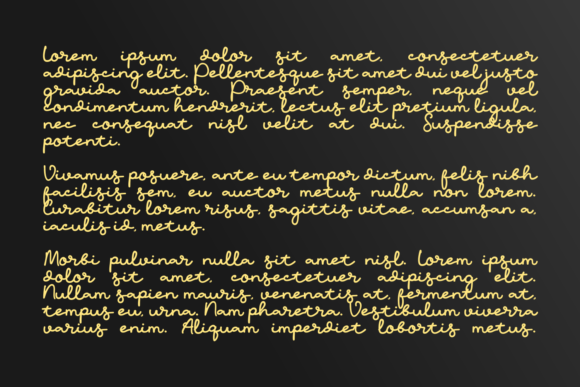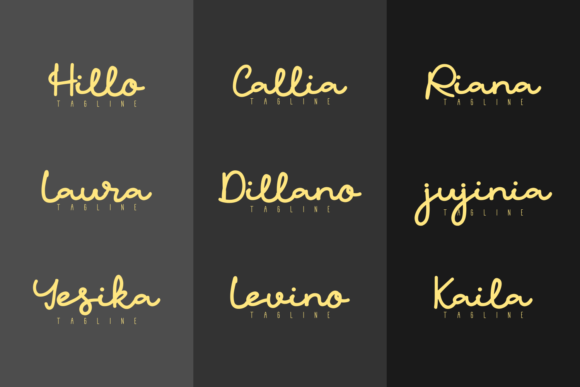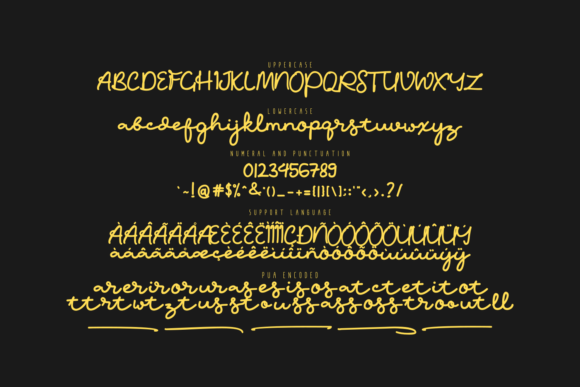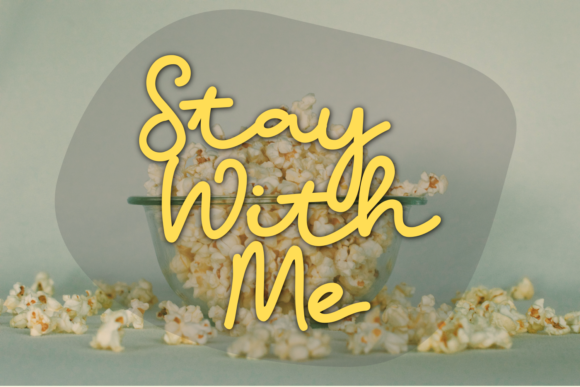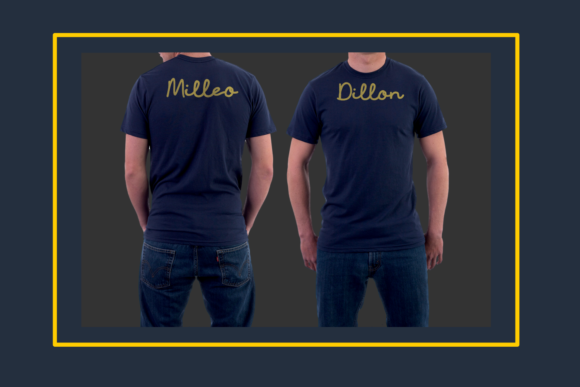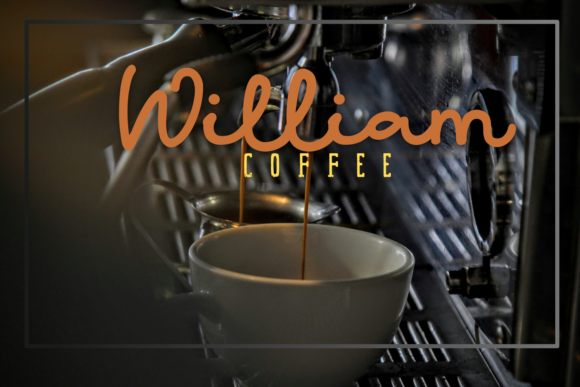
Introduction to Relliva Font
Have you ever been stuck in a design rut, struggling to find the perfect font for your creative project? Maybe you’ve spent hours scrolling through design resources, only to end up with a font that just doesn’t feel right. I’ve been there too, but all of that changed when I stumbled upon the adorable Relliva Font.
This charming handwritten font was designed with the help of a brush pen, giving it a unique, high-quality feel that’s simply irresistible. With its transparent background and versatile style, Relliva Font is perfect for everything from beautiful wedding invitations to eye-catching social media posts.
Key Features of Relliva Font
- Relliva Font is a high-quality design resource ideal for creative projects, offering a unique and modern aesthetic.
- This font features a transparent background, making it perfect for use on various backgrounds and designs.
- Relliva Font is offered in a range of sizes, from 12 to 72 points, and is designed to be scalable for use in various creative projects.
- This font is suitable for use at a high resolution of 300 DPI, making it ideal for printing and other high-quality applications.
- Relliva Font is a versatile design resource that can be used in a variety of creative contexts, from logos and branding to typography and graphics.
Honest Review: Relliva Font
I recently had the opportunity to work with the Relliva Font, and I must say it’s been a game-changer for my design projects. The high-quality font is perfect for any creative project that requires a modern and sleek look.
What works well is the transparent background of the font, making it easy to customize and integrate into any design. The font is also incredibly versatile, allowing me to use it for a wide range of design projects, from logos to typography.
What I like: ✨ Modern and sleek design ✨ High-quality font ✨ Transparent background ✨ Versatile and easy to use
Limitations: ⚠️ Limited character set ⚠️ Not suitable for complex typography ⚠️ May require additional styling for certain design projects
Overall, I’m impressed with the Relliva Font and would highly recommend it to any designer looking for a high-quality, modern font for their creative project.
- Perfect for modern and sleek designs
- High-quality font for creative projects
Tips for Getting the Most Out of Relliva Font
To get the most out of the Relliva Font, use it in combination with a transparent background to create a clean and modern look. Experiment with different font sizes and styles to add visual interest to your design.
The Relliva Font is perfect for creative projects such as logos, branding, and marketing materials. It’s also great for personal projects like invitations, flyers, and social media graphics.